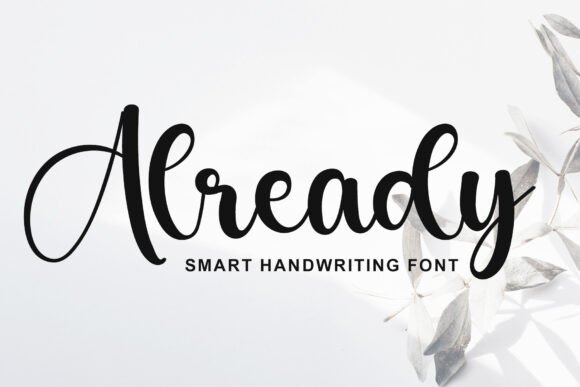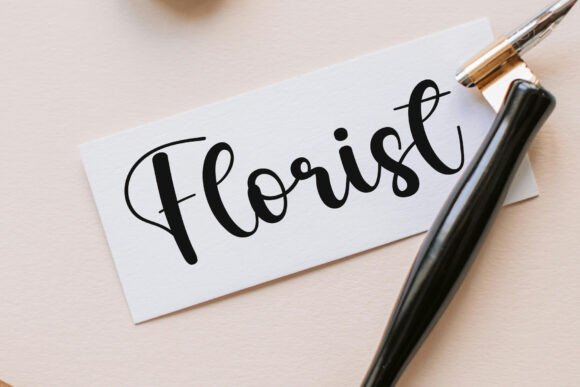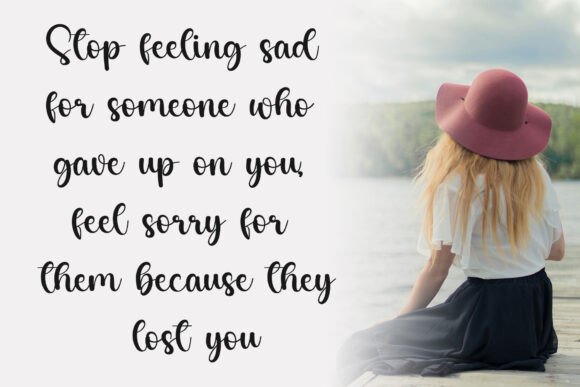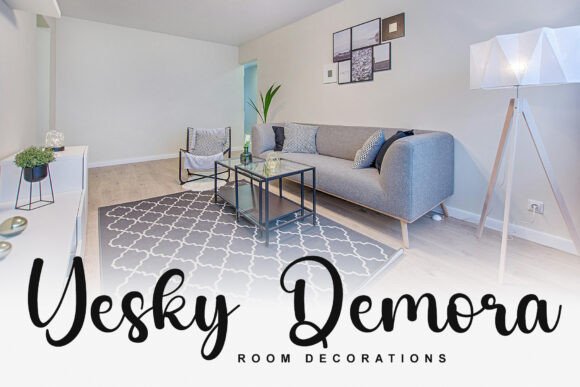
Already Font: Elegant Handwritten Script for Wedding Invitations
About the Already Font
Crafted with precision, the Already Font is ready to bring your ideas to life. Already is a beautifully crafted display handwriting font that blends elegance with a modern, artistic touch. Its flowing strokes and well-balanced curves create a sophisticated yet approachable feel, making it the perfect font choice for those who want to add a touch of class and personality to their designs.
Already Font excels in display applications such as logos, headlines, short quotes, and invitations. Its elegant yet approachable nature makes it ideal for branding projects targeting a sophisticated yet friendly audience, particularly in the fashion, beauty, or lifestyle sectors. Avoid using it for extended body text or UI elements where readability is paramount; its flowing strokes can hinder legibility in smaller sizes or continuous paragraphs.
Pairing Already Font with a clean sans-serif like Lato or Open Sans provides a strong contrast and enhances readability when used together. For a more luxurious feel, consider pairing it with a classic serif font such as Garamond or Didot. These combinations offer visual balance, allowing Already Font’s elegant personality to shine.
The overall personality of Already Font is sophisticated and approachable, conveying a sense of both elegance and approachability. It’s a versatile display font best suited for projects requiring a touch of modern handwriting charm without sacrificing professionalism.
Already Font Usage Examples
Already Font Example